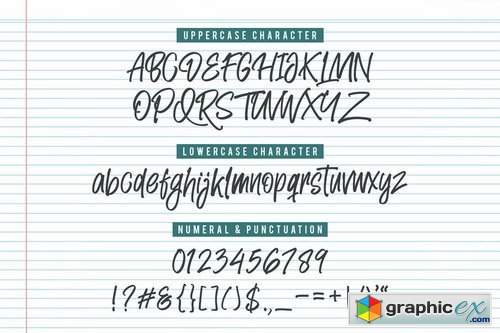
Landy Notes
Landy Notes is a casual handwritten font. It features a modern style and will add a unique feel to your upcoming projects. Get inspired by its authentic feel and use it to create beautiful stationary art, eye-catching social media posts, and cute greeting cards.